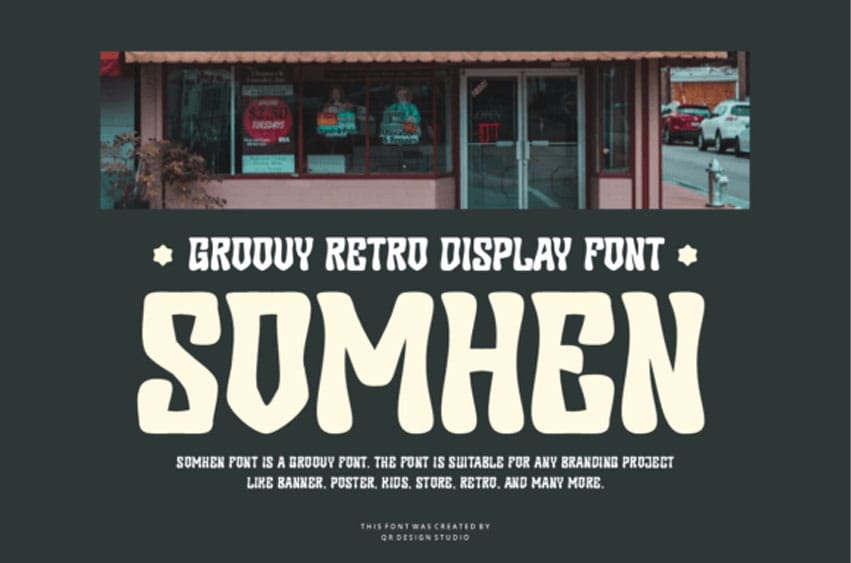
Somhen Font is a bold and groovy retro display font that brings vintage vibes to modern designs. With its chunky curves and playful personality, this typeface is perfect for posters, storefronts, kids’ projects, banners, and anything that needs a touch of nostalgic fun.
Its quirky letterforms evoke the energy of 70s design while remaining versatile for branding and creative work today.